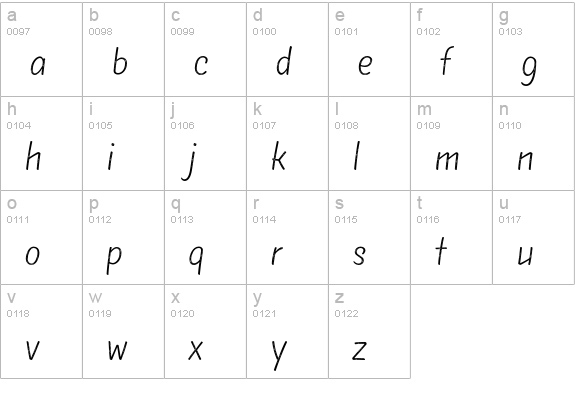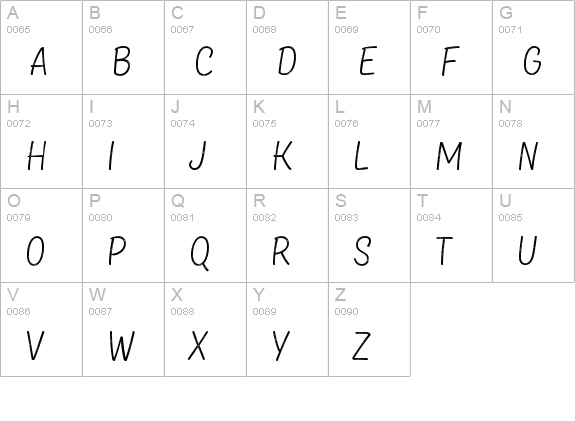
TT Masters Rough Light Font Details
TT Masters Rough Light is a refined, elegant variant in the TT typeface family \xE2\x80\x94 well suited to elegant body text, refined sub-headings, and luxury branding.
TT Masters Rough Light font is a modern and versatile typeface that brings a unique and edgy flair to any design project. Its rough texture adds a touch of character and authenticity, making it perfect for branding, posters, and other creative endeavors. This font is freely available to download at FontsMarket.com, allowing designers and creatives to easily access and incorporate it into their work. With its clean lines and rough edges, TT Masters Rough Light font adds a dynamic and bold element to any design, making it a must-have for those looking to make a statement with their typography.